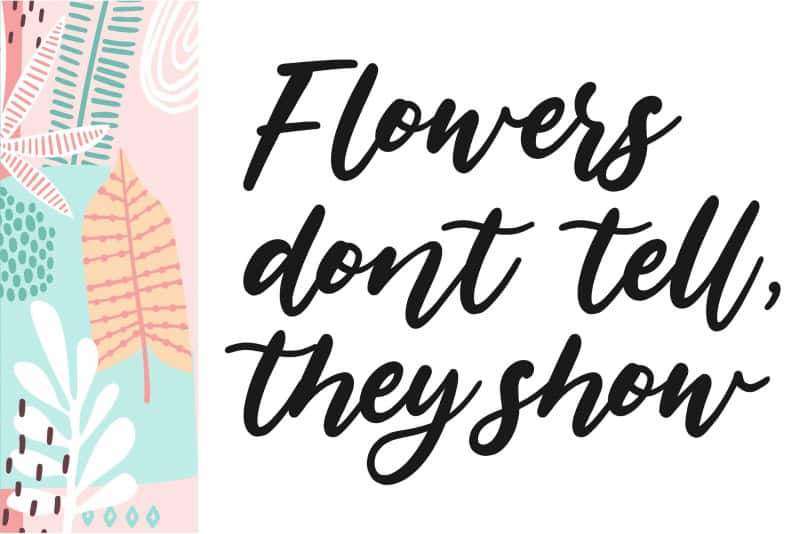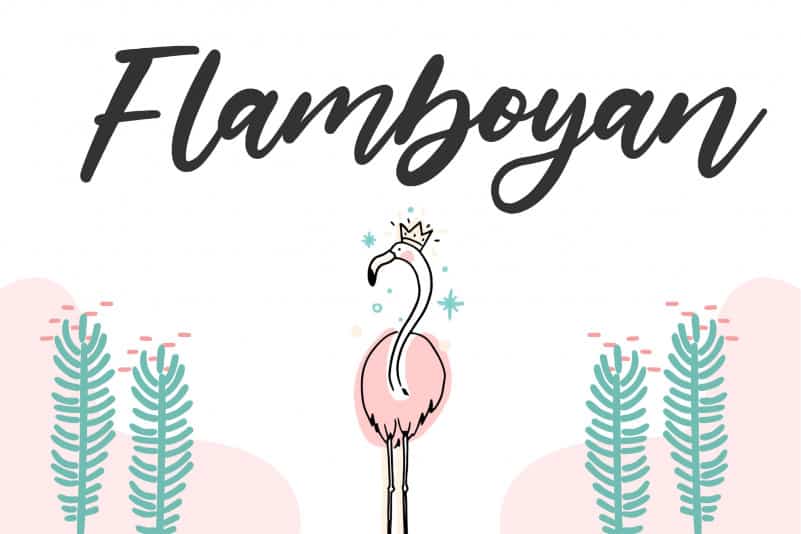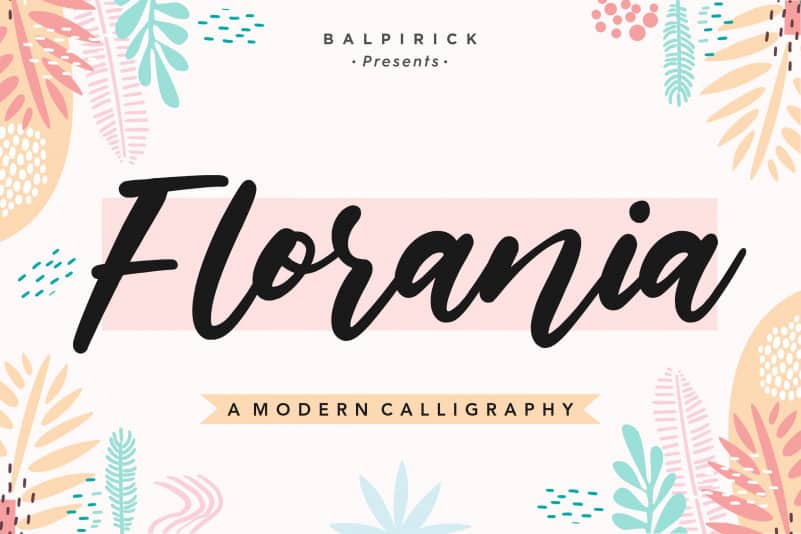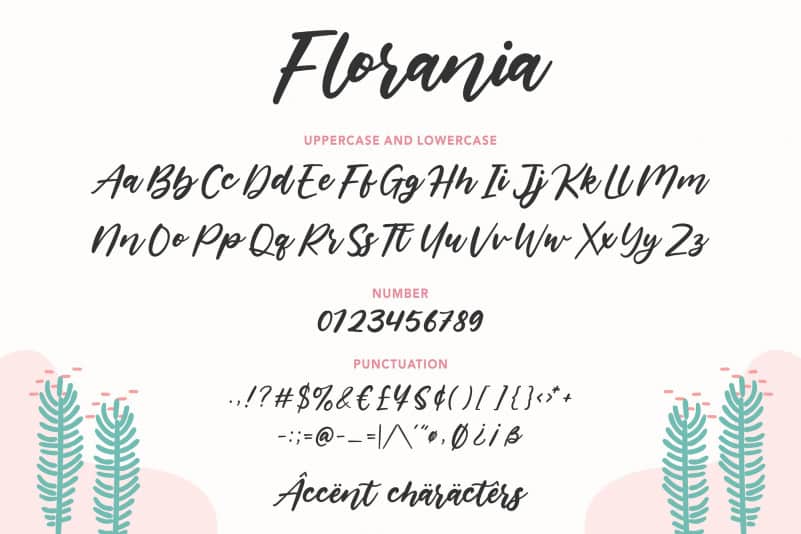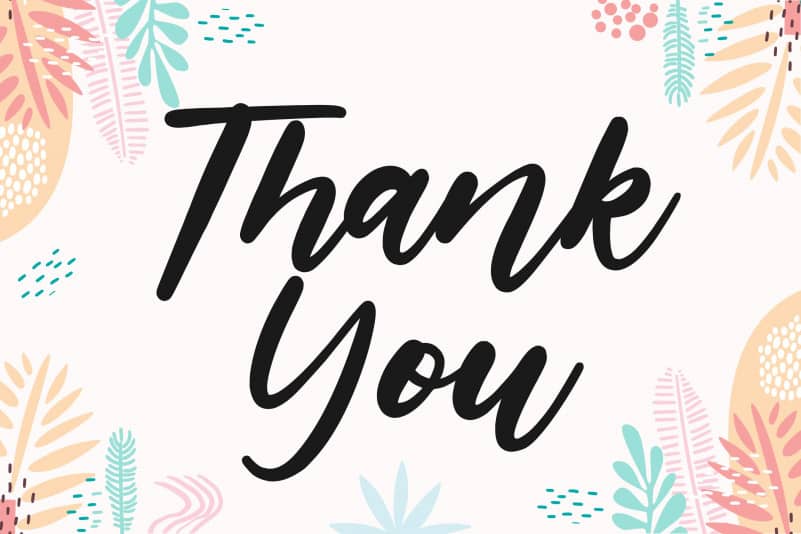
Florania Calligraphy Font
Proudly Present, Florania Calligraphy Font.
Florania is a Modern Calligraphy Font.
Florania is perfect for product packaging, branding project, megazine, social media, wedding, or just used to express words above the background.